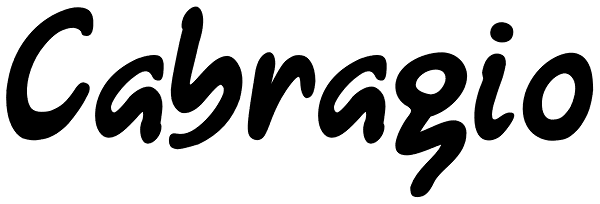
Cabragio
Cabragio is a free-flowing informal font, very curvy and quite heavy. The free-flowing effect is especially apparent in the lower case letters, and this font is definitely something a bit different -- yet is highly readable and attractive. Original...